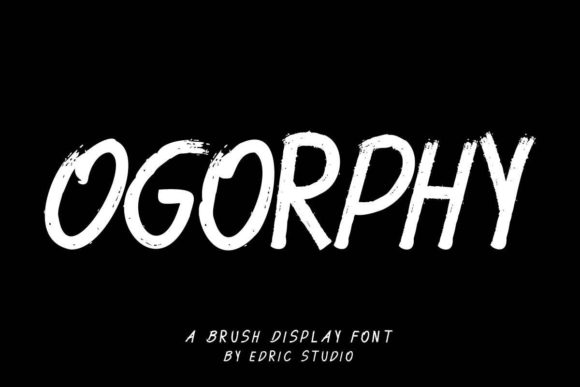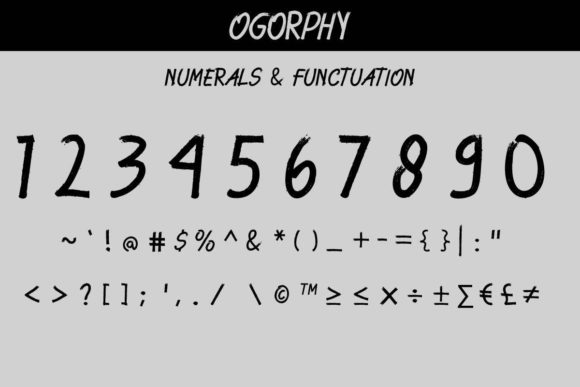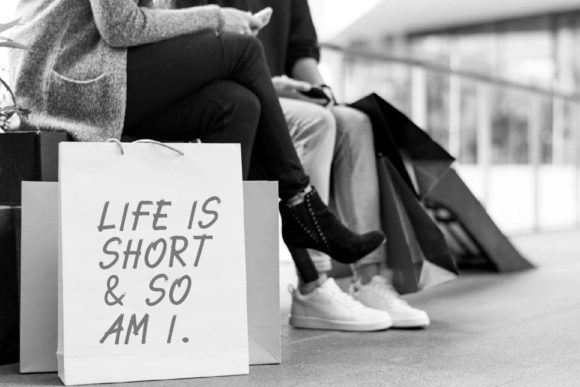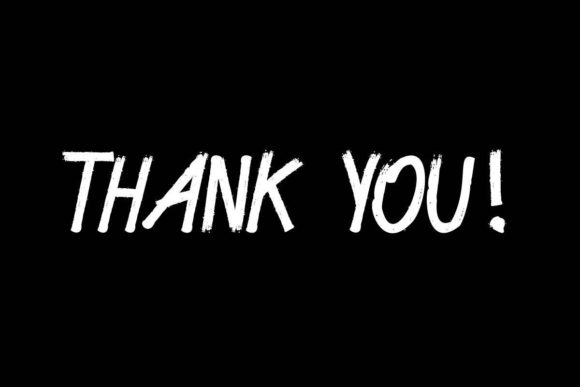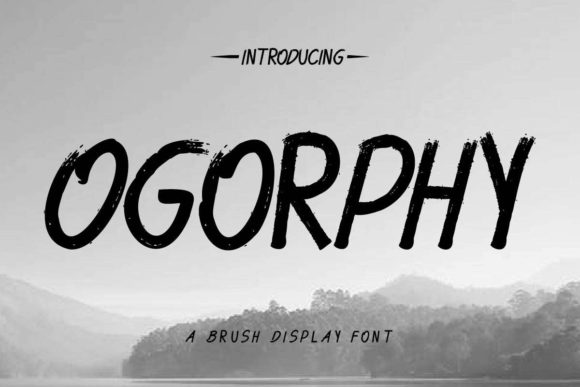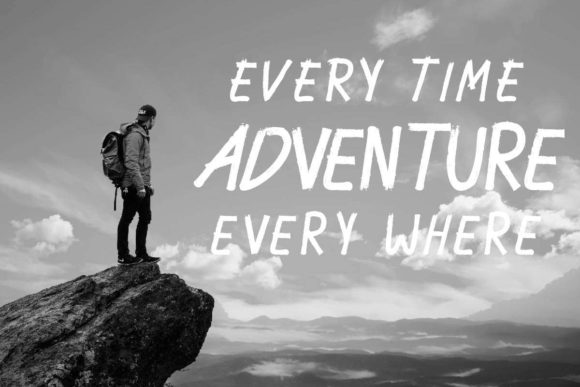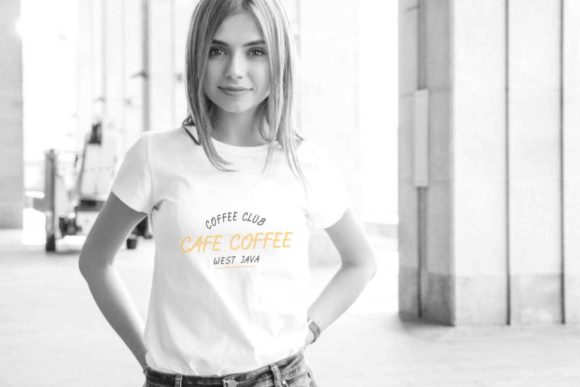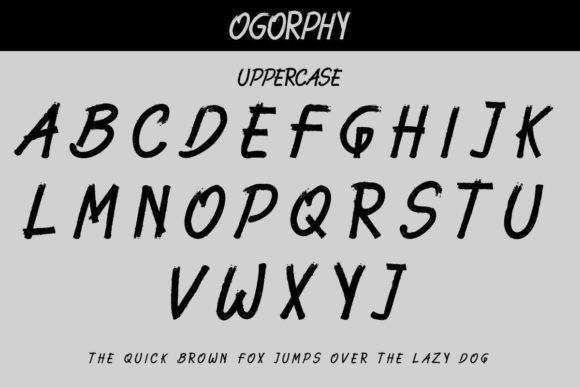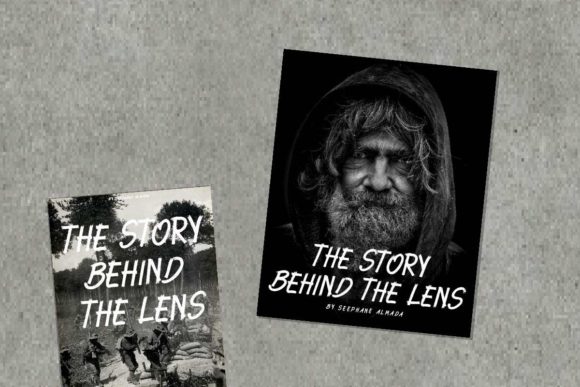
Ogorphy Font
About Ogorphy Font
Ogorphy is a casual, fun handwritten font, created by using a brush pen. Clean and a little bit quirky, this font is the perfect fit for all of your logos, branding, social media, and crafty DIY projects.